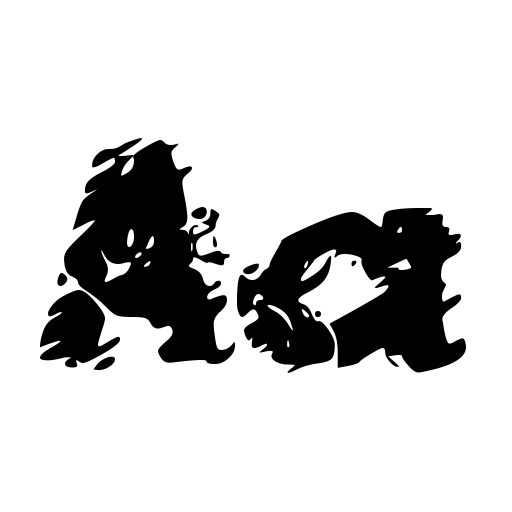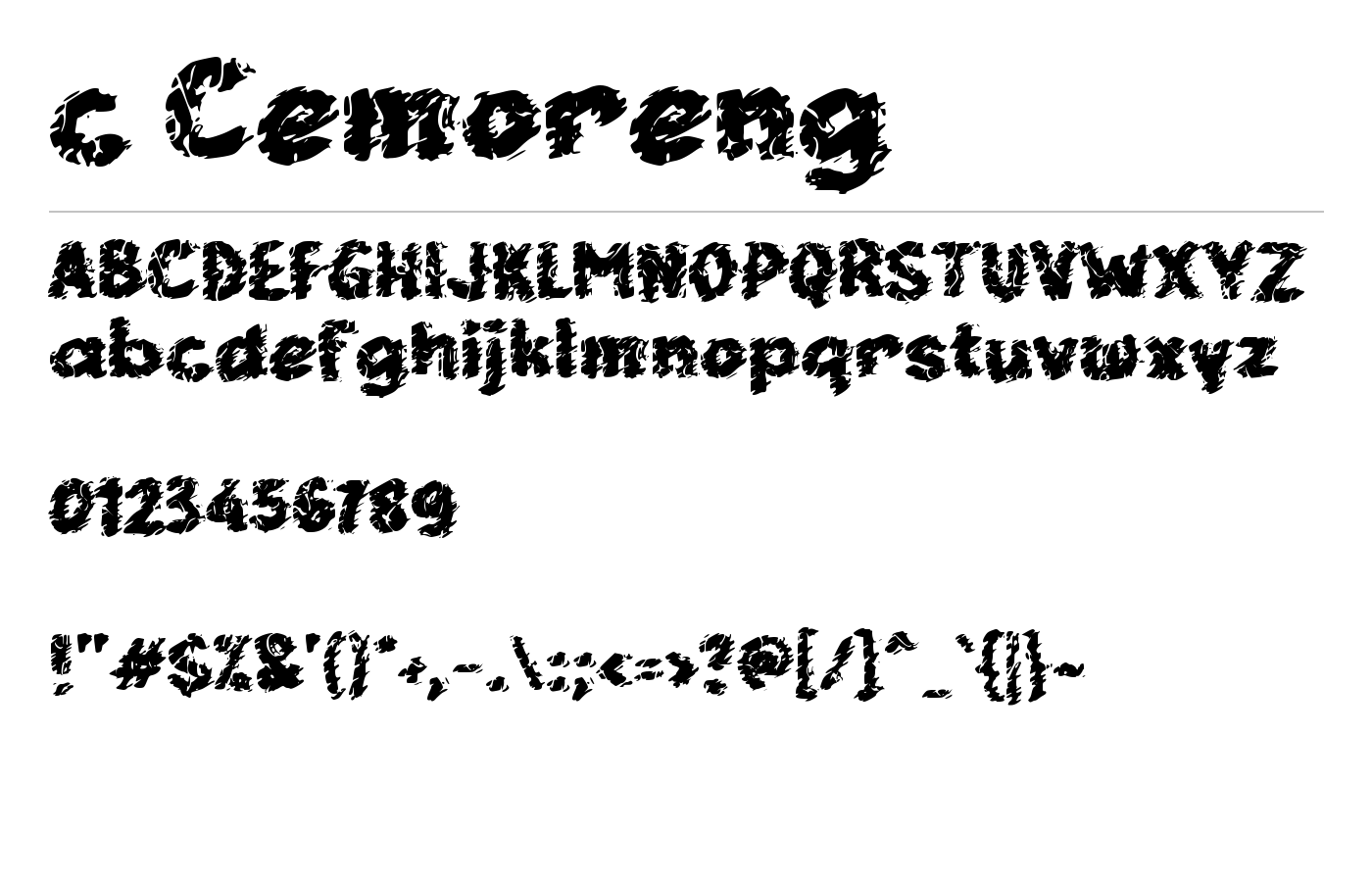
Cemoreng is a bold, distressed display font with a rough, textured appearance that gives it an edgy and dynamic feel. Its heavy weight and irregular shapes make it perfect for eye-catching headlines, posters, and creative branding that aims to convey energy and a raw, urban vibe. This font works well in informal, artistic, or expressive designs where a strong visual impact is desired.
c Cemoreng Font
About c Cemoreng Font